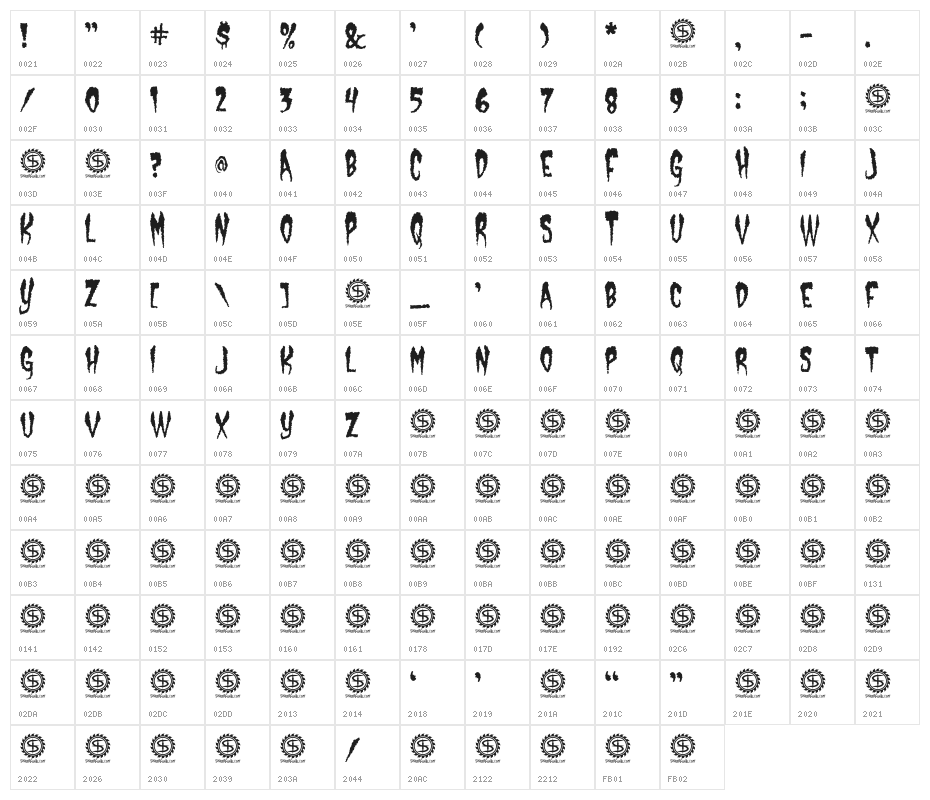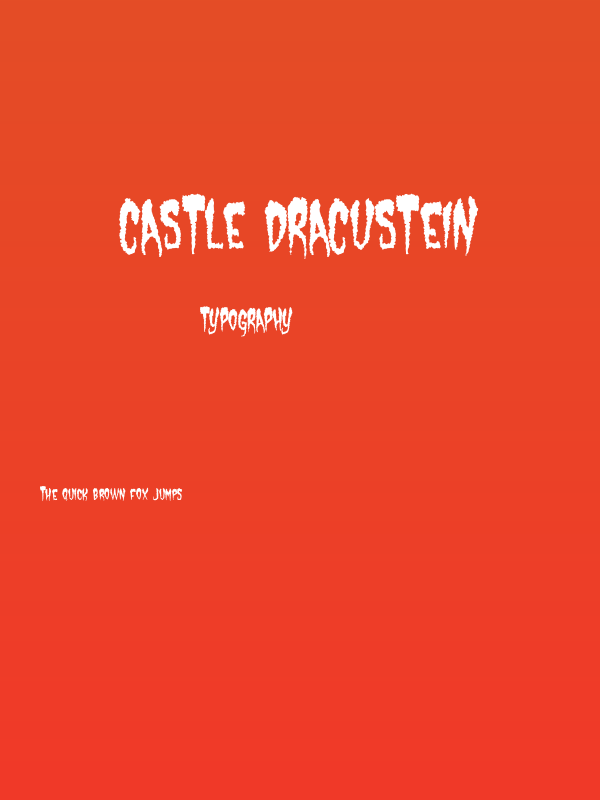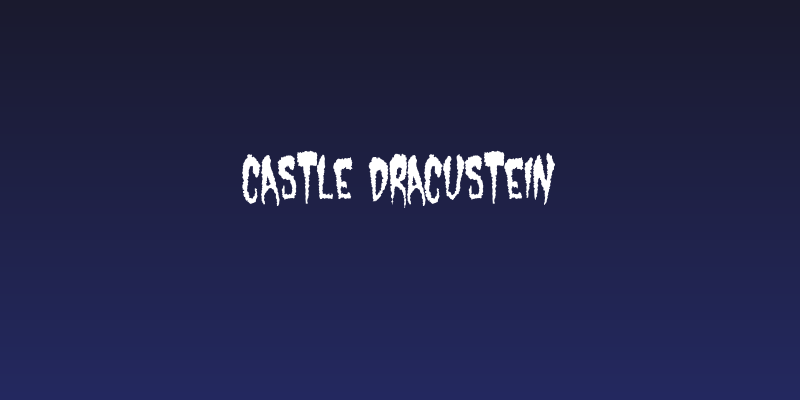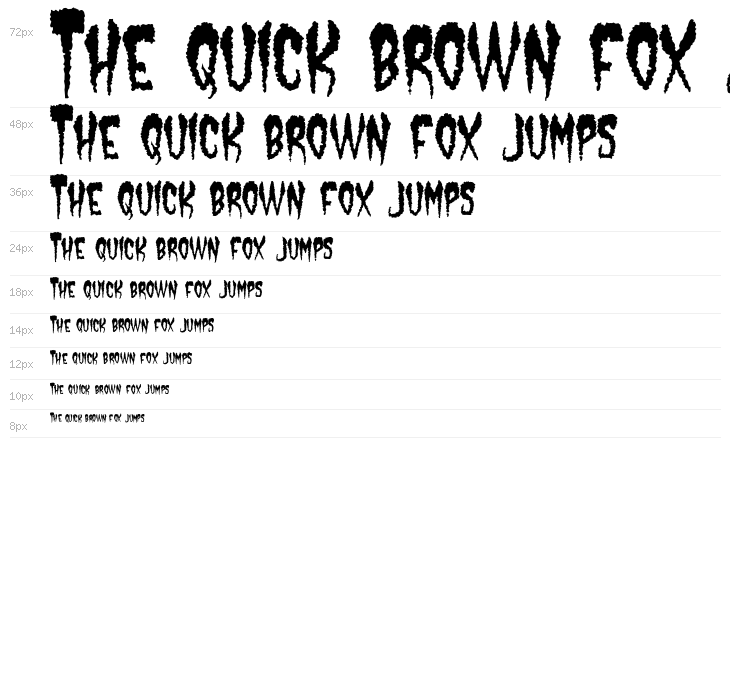
Castle Dracustein Font
Castle Dracustein Description
This font features a jagged, eerie style reminiscent of classic horror themes. The characters have irregular, sharp edges that give them a dripping appearance, evoking a sense of mystery and suspense. The uppercase and lowercase letters maintain a consistent style, with each character appearing as if it has been carved or eroded. Numbers and special characters follow the same aesthetic, ensuring a cohesive look across all text. This font is perfect for creating a spooky or gothic atmosphere, making it ideal for Halloween-themed projects or horror movie posters.
| Overall Style | Gothic, Horror |
| Use Case | Headlines, Posters, Themed Events |
| Proposed Projects | Ideal for Halloween invitations, horror movie posters, haunted house flyers, or any project requiring a spooky aesthetic. |